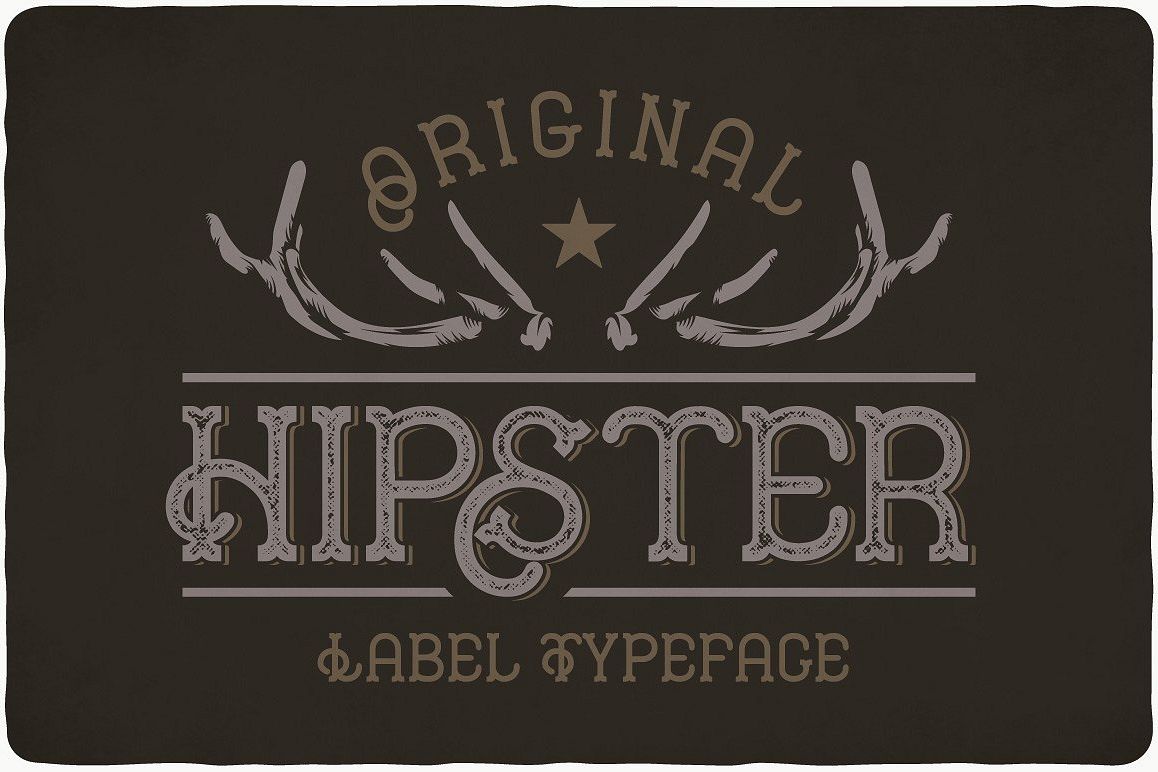
Introducing a vintage look label typeface named "Hipster". This typeface contains layers - light and shadow, for sample look at 4th preview. Plus aged (distressed) version. Typeface is good viewed on any yours design.Complect: